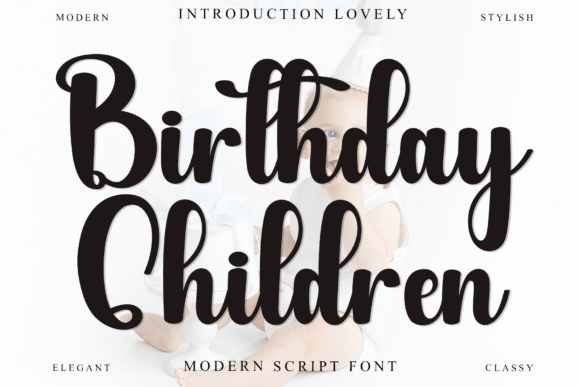
The Birth of a Perfect Font: A Designer’s Delight
I’ll never forget the time I was working on a birthday party invitation for my niece. I had all the design elements ready – the cute illustrations, the vibrant colors, and the fun graphics. But, I was stuck on one thing: the font. I wanted something that would capture the playful and cheerful essence of a child’s birthday celebration. That’s when I stumbled upon the Birthday Children Font. It was love at first sight! 🎉
A Font that Feels like a Warm Hug
The Birthday Children Font is a casual and creative font that exudes warmth and friendliness. Its round, playful strokes create a relaxed and approachable feel, perfect for personal projects, invitations, and social media graphics. The font’s charming, hand-drawn aesthetic adds a fun and unique touch to any design. It’s like a breath of fresh air in the world of typography! ✨
• ✨ The font’s playful and carefree vibe makes it perfect for kids’ party invitations, birthday cards, and other celebrations.
• ✅ The round strokes and smooth curves create a cohesive and harmonious look.
While the Birthday Children Font is a gem, it’s not without its quirks. For instance, ⚠️ some users might find the font a bit limited in terms of variations and weights. Additionally, 🤔 the font’s hand-drawn nature can make it less suitable for very formal or professional designs.
The Designer Behind the Font
The Birthday Children Font was created with love and care by a talented designer who wanted to bring a touch of childhood magic to the world of typography. Inspired by the joy and wonder of childhood celebrations, the designer crafted a font that would evoke feelings of happiness and warmth. 🌟
Q: What is the Birthday Children Font?
A: The Birthday Children Font is a casual and creative font designed for personal projects, invitations, and social media graphics.